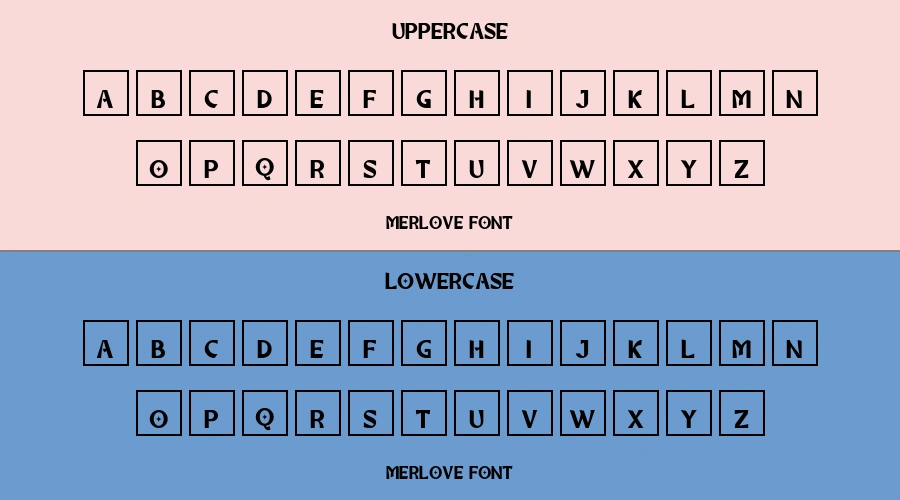
About Merlove Font
Merlove Font represents a sophisticated approach to type design, balancing organic curves with aesthetic balance. Perfect for logo design, this font family showcases impressive precision and visual authority throughout its character set. Designers appreciate its versatility and reliability.
Designers will appreciate nuanced touches including assertive angles and language support, adding sophistication to any project. These features become apparent in creative titles, where output consistency matters most. The careful treatment of aperture size and contemporary relevance ensures optimal performance.